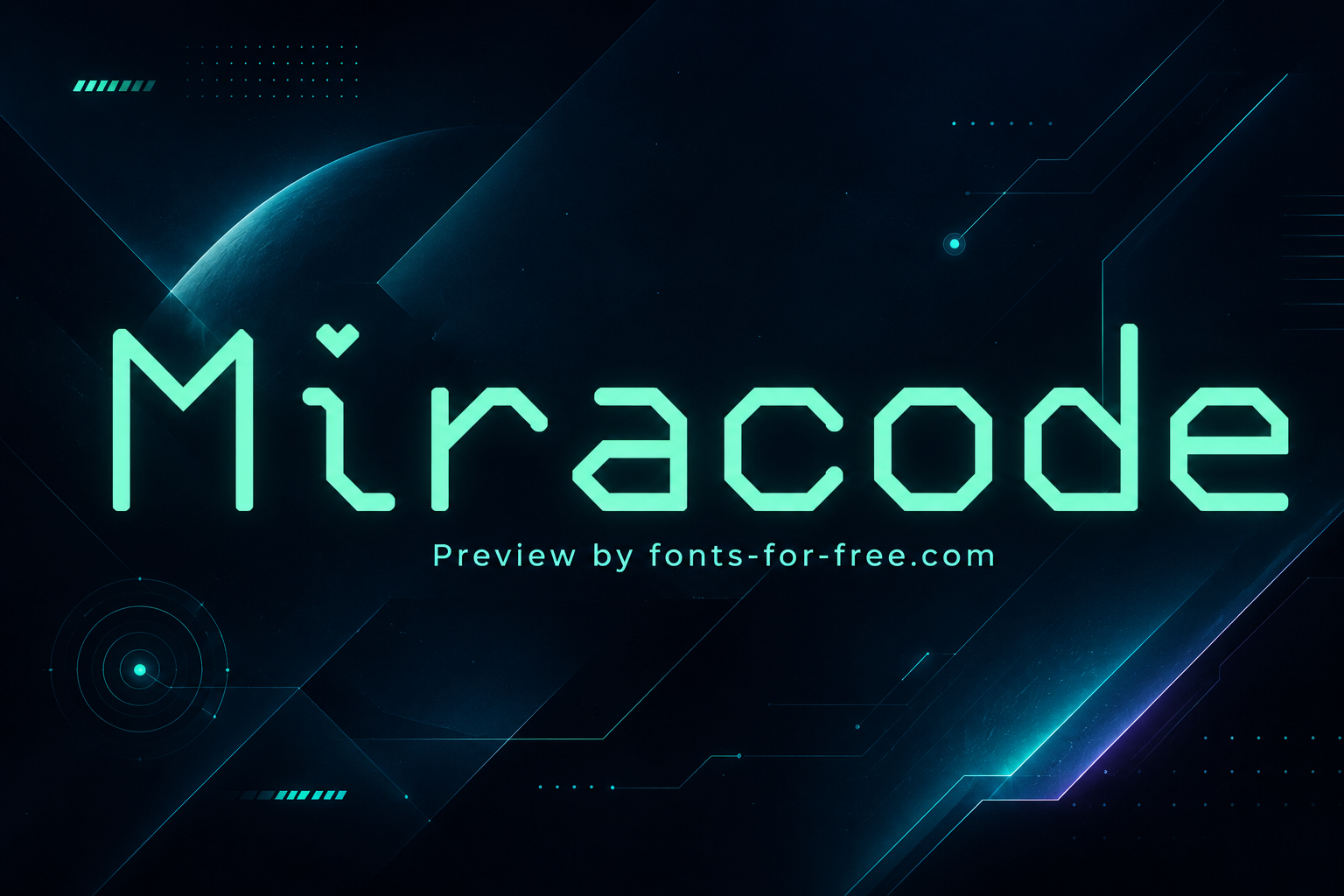
Miracode
Miracode is an angular monospaced display/code font created by Idrees Hassan and distributed under the SIL Open Font License 1.1. Its letterforms are built from straight segments, clipped corners, and simplified geometric curves, giving the typeface a digital, sci-fi rhythm without becoming overly dense. The regular weight uses even stroke widths, wide spacing, and distinctive details on narrow letters such as i and l, helping readability in short interface text and coding-style layouts. Miracode also includes programming ligatures and a large glyph set, making it suited to code previews, tech branding, game graphics, futuristic posters, UI mockups, and digital headings.